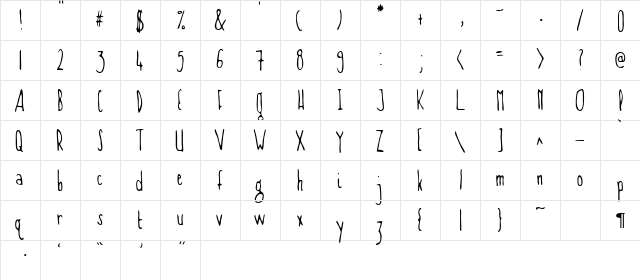
Gawky Regular
Design Context for Gawky Typeface
Gawky is a composed and adaptable typeface that performs quietly and consistently across a wide range of design contexts.